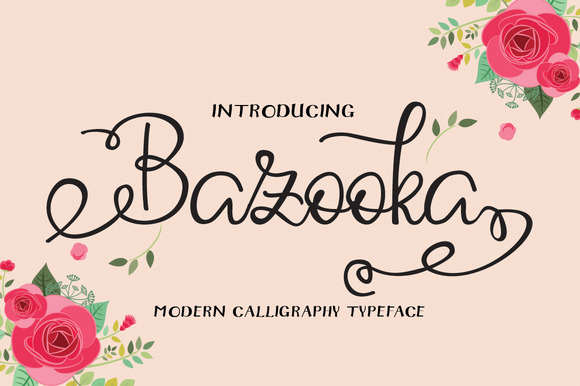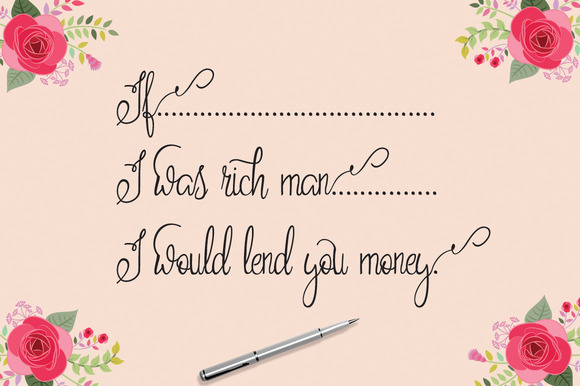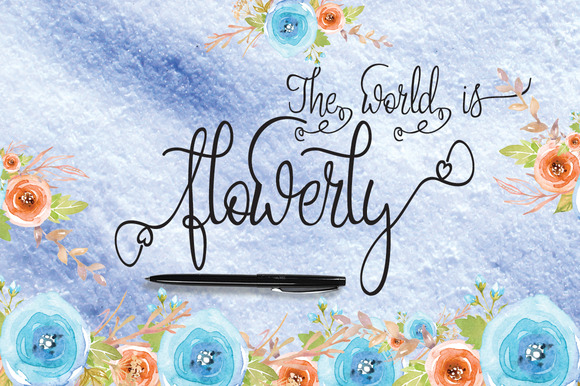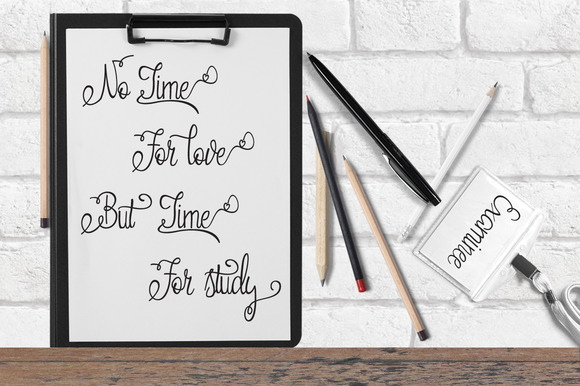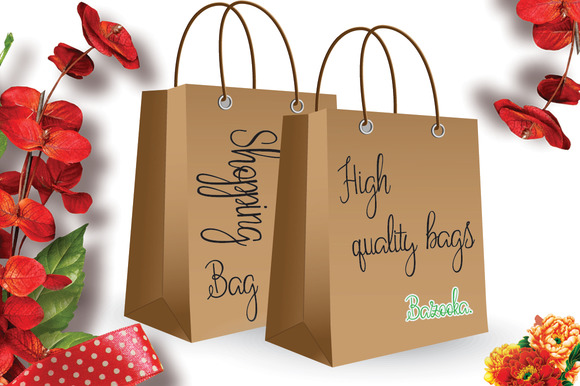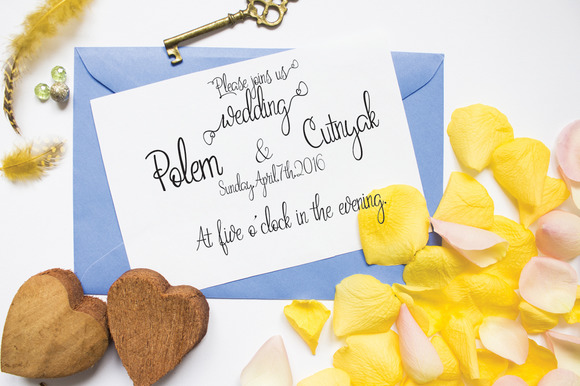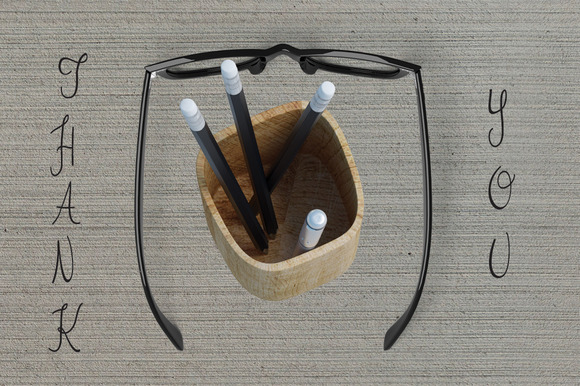
Bazooka Font
About Bazooka Font
This modern calligraphy typeface is a bold brush script that is beautiful and unique. It’s a model of modern calligraphy typefaces in combination with calligraphy writing styles.